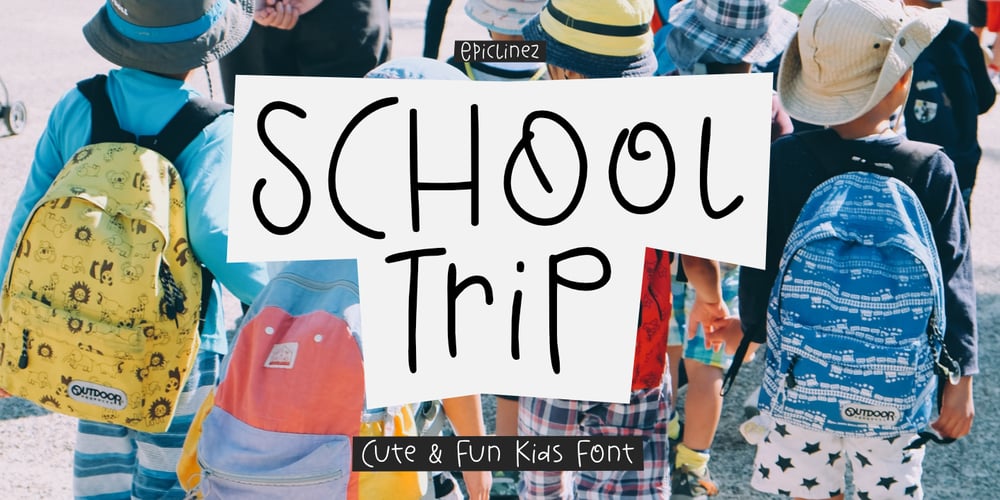
School Trip Font Family was designed by Aldy Sidik and published by Epiclinez. School Trip contains 1 styles and family package options. School Trip is a fun and cute handwritten font. It has a playful vibe and it’s easy to read. Get inspired by its simplistic charm and use it to brighten up any creative projectsFeatures : Basic Latin A-Z, a-z, numbers, symbols, and punctuations School Trip is supporting 66 Languages: from Afrikaans Albanian Catalan Danish to Dutch English Spanish Swedish Zulu. Accented Characters : ÀÁÂÃÄÅÆÇÈÉÊËÌÍÎÏÑÒÓÔÕÖØŒŠÙÚÛÜŸÝŽàáâãäåæçèéêëìíîïñòóôõöøœšùúûüýÿžß Thank you